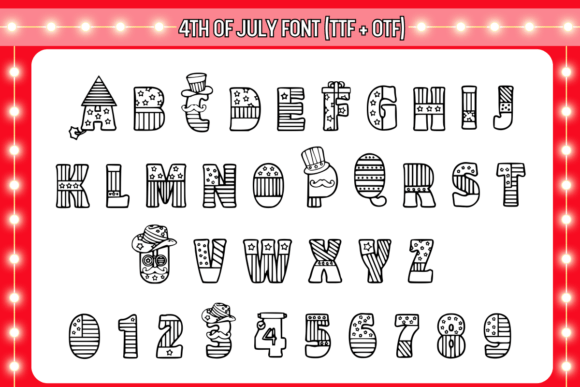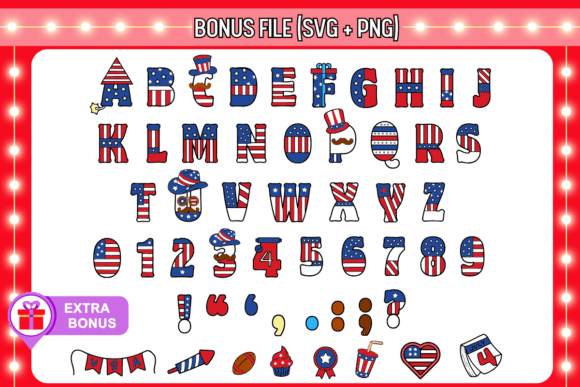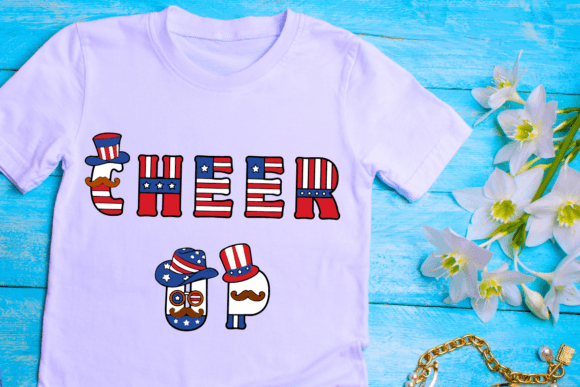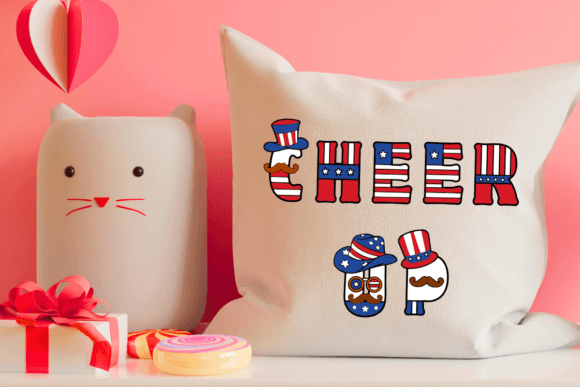
4th of July Font: A Patriotic Decorative Design for Independence Day
The 4th of July is a day of celebration, freedom, and patriotism. As designers and crafters, we love to commemorate this special day with creative and festive designs. One of the most effective ways to add a touch of American spirit to your projects is with a custom 4th of July font. In this article, we’ll explore a decorative font design that features an American flag pattern, complete with red, white, and blue colors, stars, and stripes.
Introducing the 4th of July Font
Our 4th of July font design is a unique and eye-catching way to celebrate Independence Day. This decorative font features a stylized American flag pattern, with bold red and blue stripes and white stars. The design is perfect for adding a touch of patriotism to your projects, from party invitations and decorations to social media graphics and website headers.
Design Elements
The 4th of July font design incorporates several key elements that make it both festive and functional:
- American Flag Pattern: The font features a stylized American flag pattern, complete with red and blue stripes and white stars.
- Red, White, and Blue Colors: The classic colors of the American flag are prominently featured in the design, adding a pop of color and patriotism to your projects.
- Stars and Stripes: The design incorporates both stars and stripes, creating a fun and festive look that’s perfect for the 4th of July.
Uses for the 4th of July Font
The 4th of July font design is incredibly versatile, making it perfect for a wide range of projects and applications:
- Party Invitations: Use the font to create eye-catching party invitations that set the tone for a fun and festive celebration.
- Decorations: Add a touch of patriotism to your decorations with custom banners, signs, and other materials featuring the 4th of July font.
- Social Media Graphics: Use the font to create engaging social media graphics that showcase your American spirit.
- Website Headers: Add a patriotic touch to your website headers and celebrate the 4th of July in style.
Tips for Using the 4th of July Font
To get the most out of the 4th of July font design, here are a few tips to keep in mind:
- Use it Sparingly: While the font is festive and fun, it’s best to use it sparingly to avoid overwhelming your design.
- Pair with Other Fonts: Consider pairing the 4th of July font with other fonts to create a unique and visually appealing design.
- Experiment with Colors: Don’t be afraid to experiment with different colors and combinations to find the perfect look for your project.
The 4th of July font design is a fun and festive way to celebrate Independence Day. With its stylized American flag pattern, bold colors, and stars and stripes, this decorative font is perfect for designers and crafters looking to add a touch of patriotism to their projects. Whether you’re creating party invitations, decorations, social media graphics, or website headers, this font is sure to make your designs stand out.